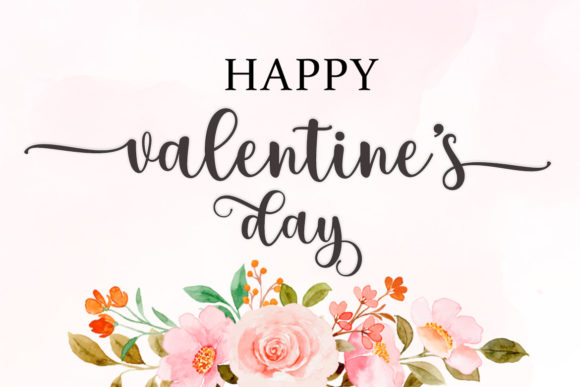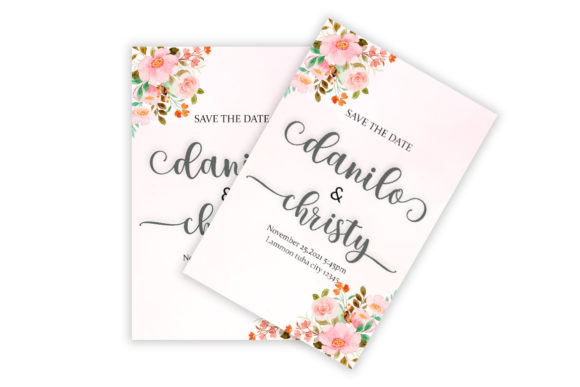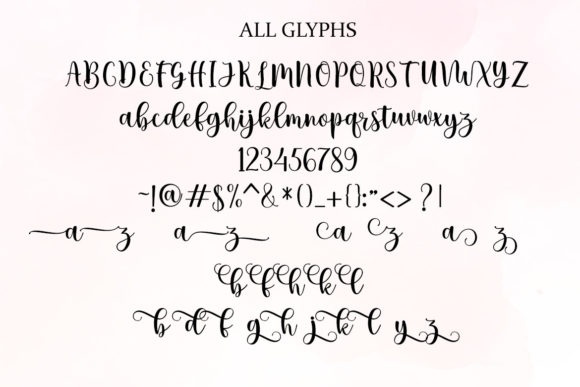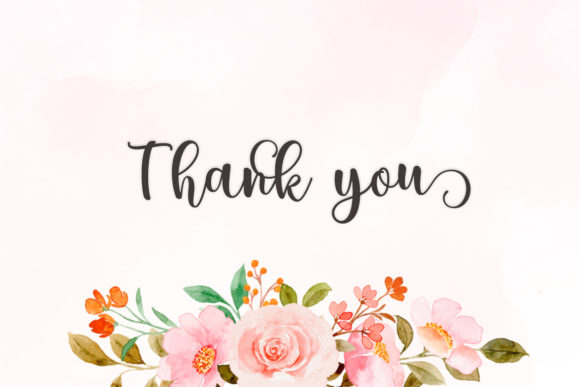
The Designer’s Delight: Christy Font
I’ll never forget the time I was working on a branding project for a boutique client, and I was stuck on finding the perfect font. The client wanted something elegant, yet playful, and I was determined to deliver. That’s when I stumbled upon Christy, a delicate and stylish script font that stole my heart. In this article, I’ll share my love for Christy, its features, and how to make the most of it in your designs.
So, what makes Christy so special? Here are a few things I love about this font:
• ✨ PUA encoded: Christy is PUA (Private Use Area) encoded, which means you can access all the glyphs and swashes with ease. No more tedious font editing or searching for special characters!
• ✅ Versatile style: Christy is incredibly versatile, making it perfect for a wide range of design projects, from branding and packaging to invitations and social media graphics.
• 💫 Delicate and stylish: Christy’s script style is both elegant and playful, adding a touch of sophistication to any design.
Of course, no font is perfect, and Christy has a few small quirks:
• 🤔 Limited use in body text: While Christy is stunning in headings and titles, it’s not the best choice for body text due to its script nature.
• ⚠️ Requires OpenType support: To access Christy’s advanced features, you’ll need to use a design platform that supports OpenType fonts.
The Designer Inspiration Behind Christy
Christy was designed with elegance and versatility in mind. The font’s creator aimed to craft a script font that would be both beautiful and functional, with a wide range of applications. Inspired by classic calligraphy and modern digital design, Christy is the perfect blend of traditional and contemporary styles.
Q: What is PUA encoding?
A: PUA (Private Use Area) encoding allows font creators to include additional glyphs and characters that aren’t part of the standard Unicode character set.
Q: Does Christy support OpenType features?
A: Yes, Christy supports OpenType features, including glyphs, swashes, and stylistic alternates.